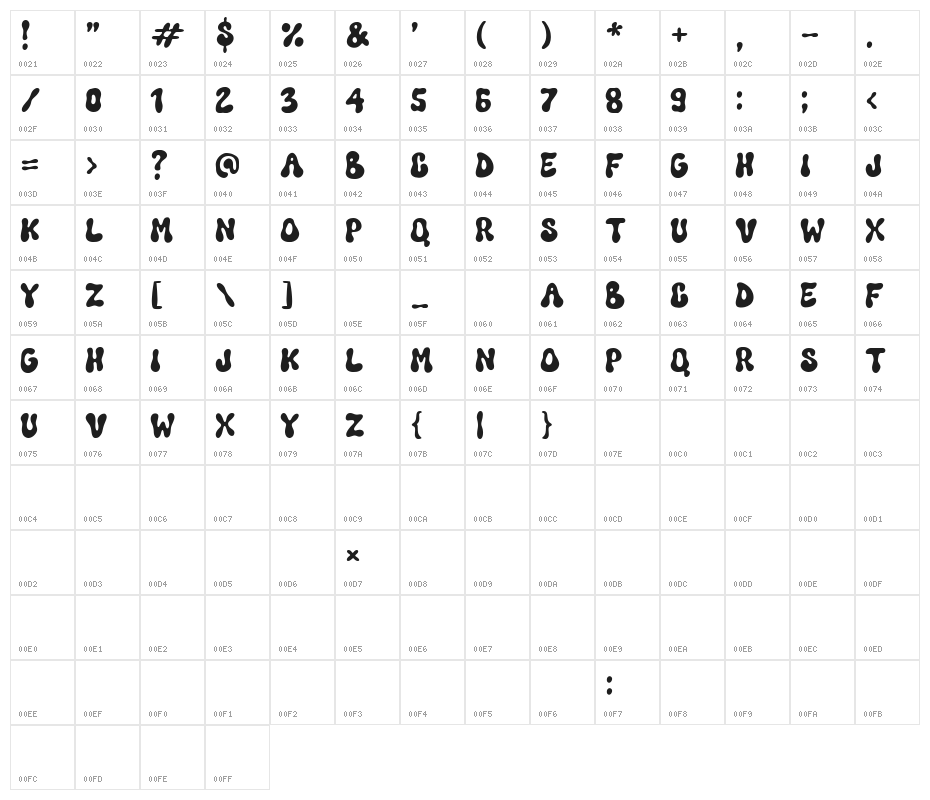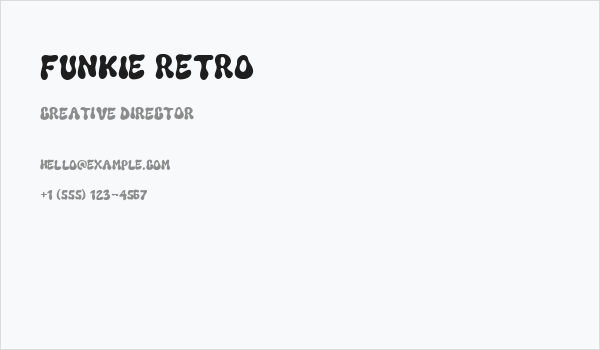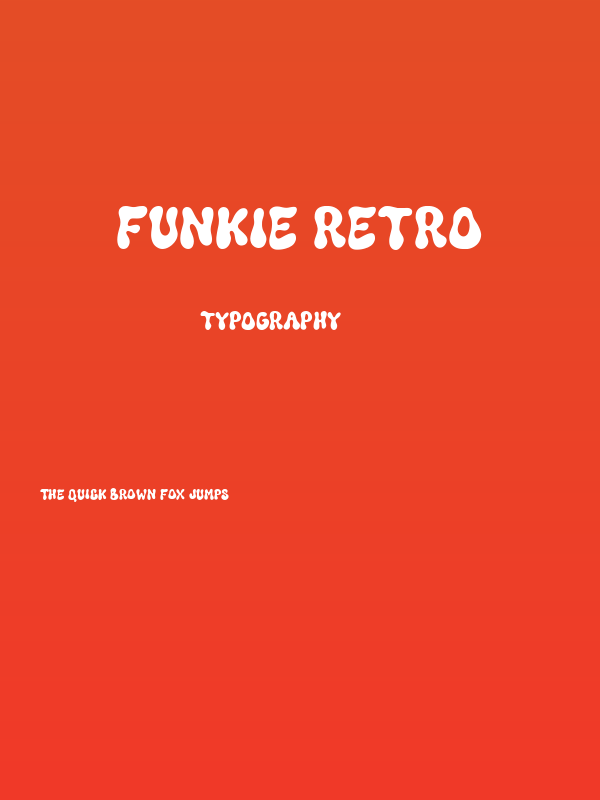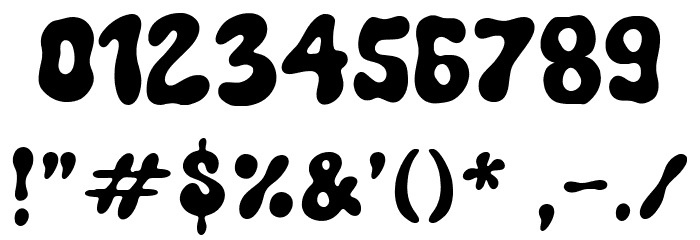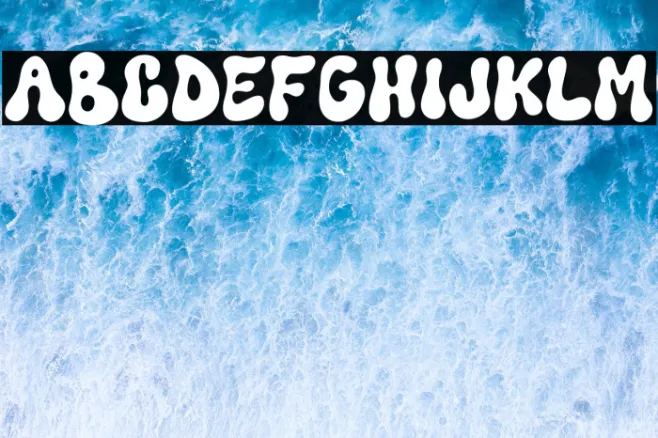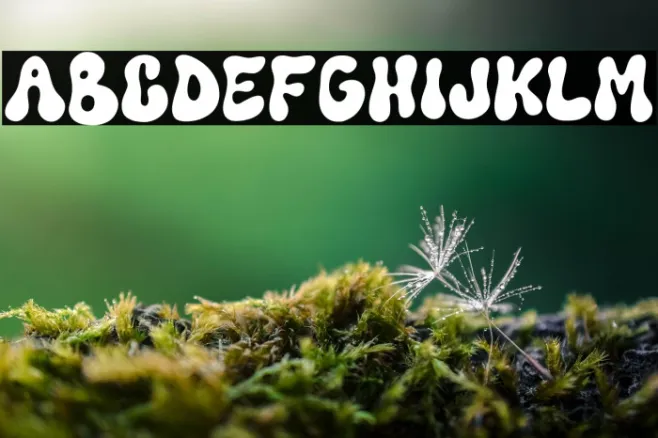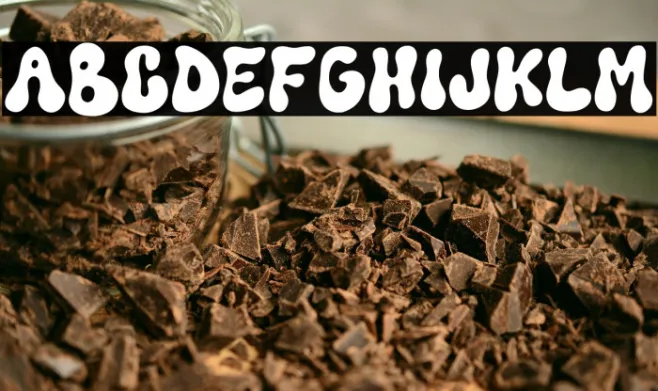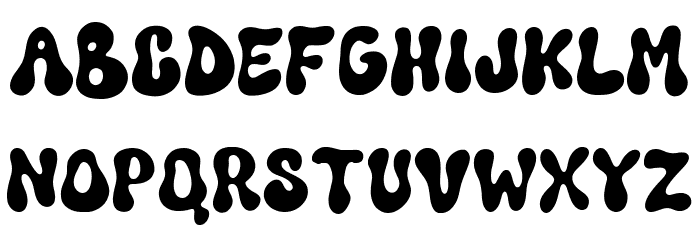
Funkie Retro Font
Funkie Retro Description
This font exudes a playful and retro vibe, characterized by its bold, rounded shapes and bubbly appearance. The letters are thick and have a soft, flowing quality that gives them a whimsical and approachable feel. The design is reminiscent of the 1960s and 70s, making it ideal for projects that aim to capture a nostalgic or vintage aesthetic. The characters are evenly spaced, with a consistent width that maintains readability despite the font's decorative nature. The numbers and special characters follow the same stylistic approach, ensuring a cohesive look across all text elements.
| Proposed Projects | Ideal for retro-themed posters, vintage branding, playful packaging designs, and creative social media graphics. |